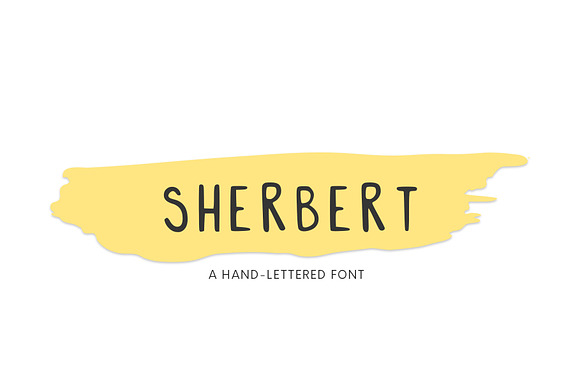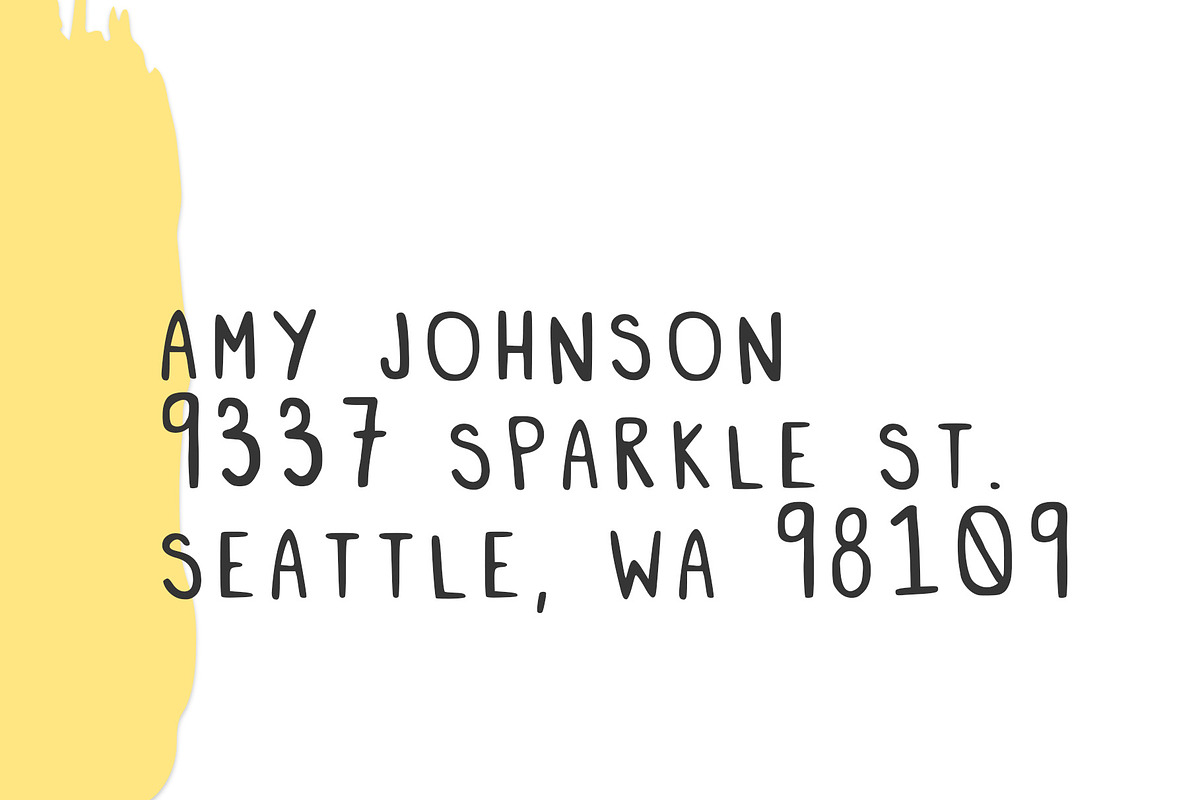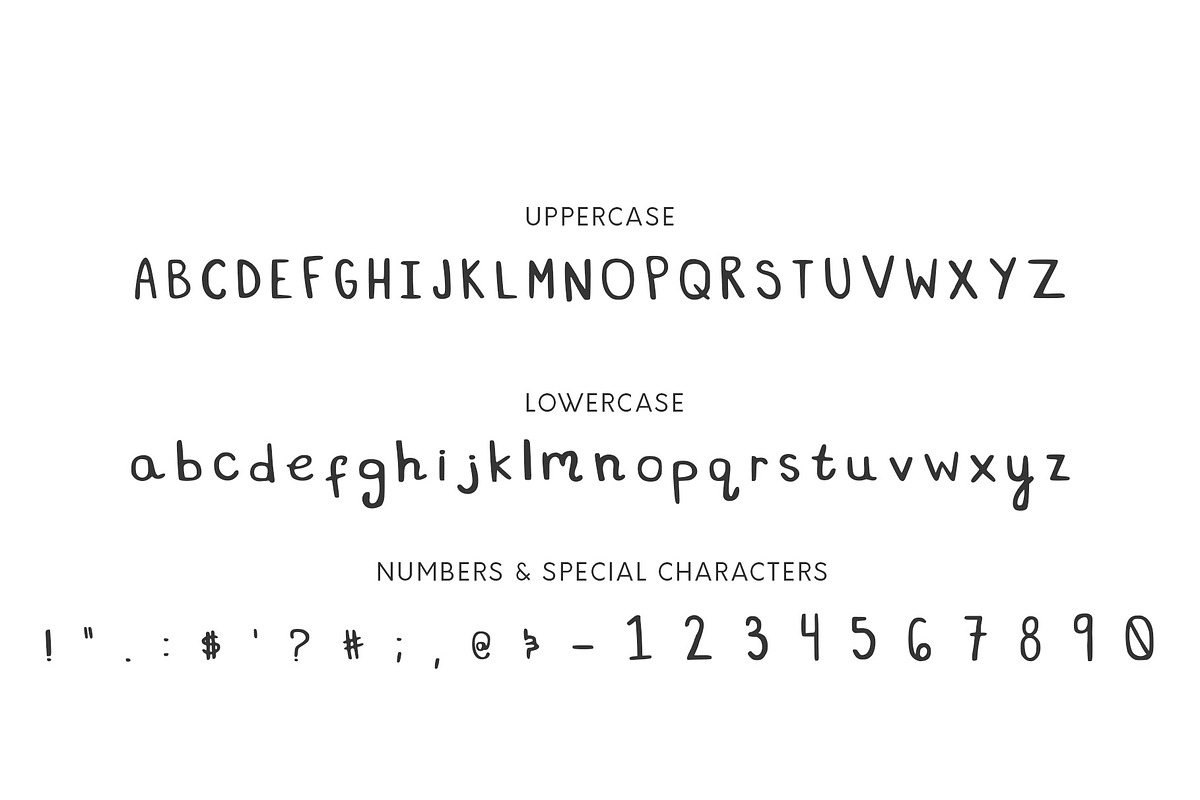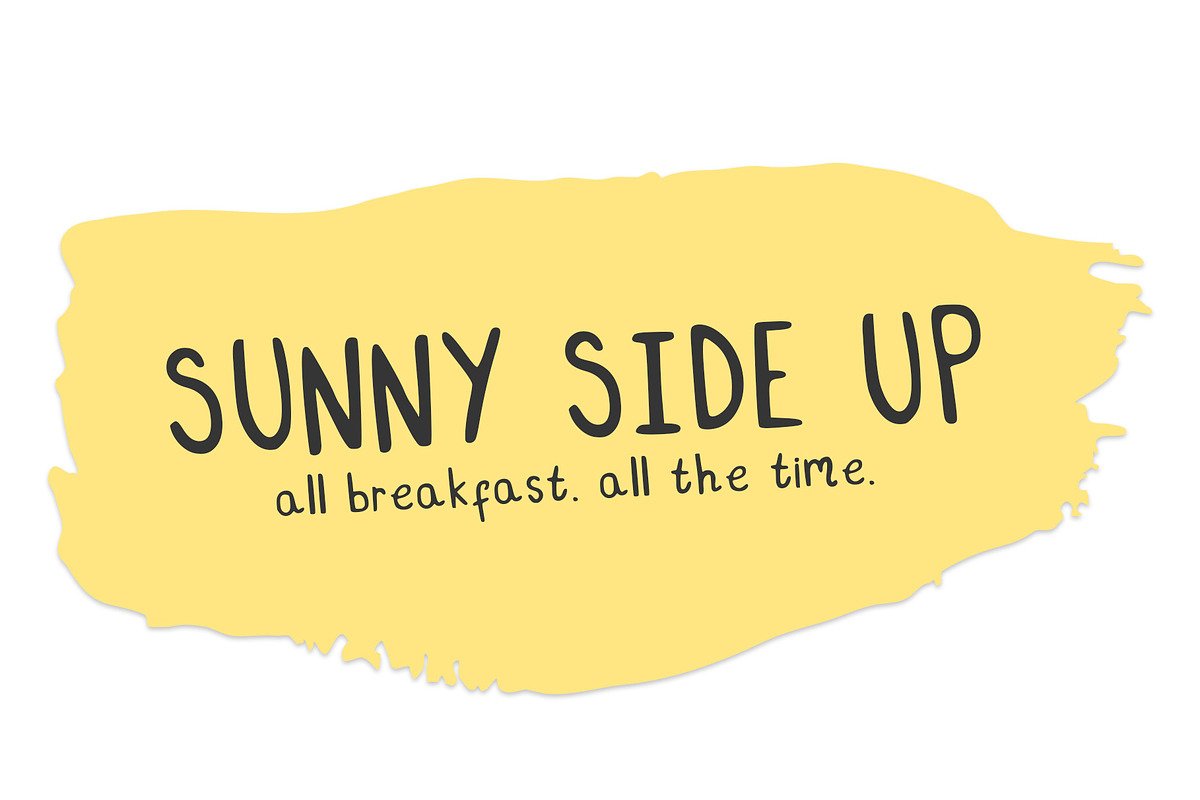
Sherbert, A Hand-Lettered Font
We are thrilled to share our very first font with you all, Sherbert! A deliciously cute and spunky typeface that's perfect for all sorts of graphic design projects. Including web design, branding, stationery design, logos, banners and more!
Speciality characters: ! : $ - " # ; @ . ? & '